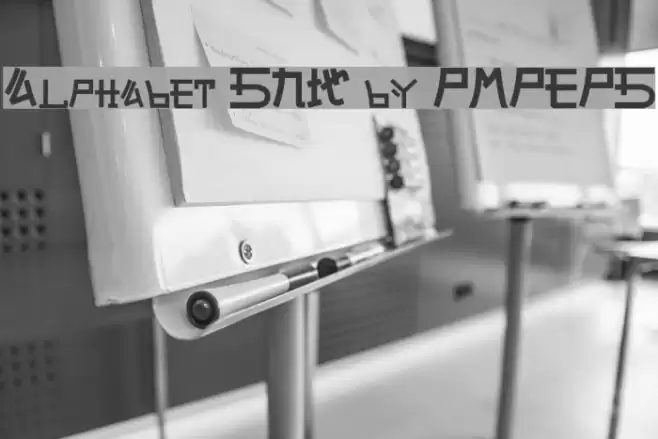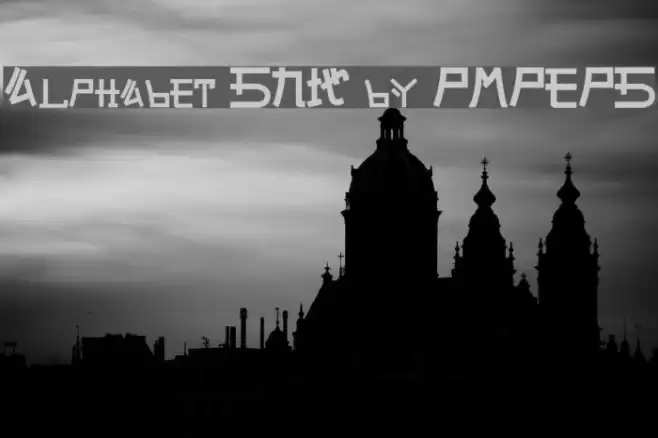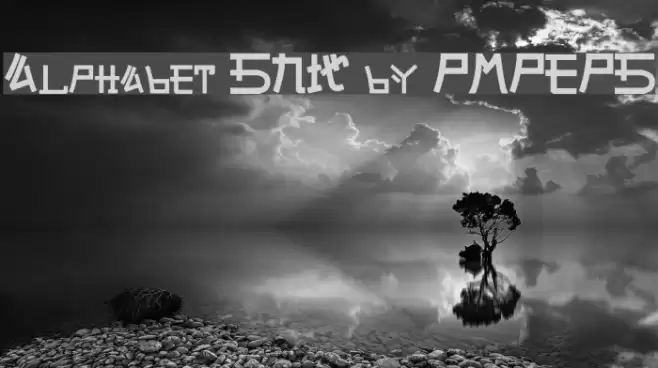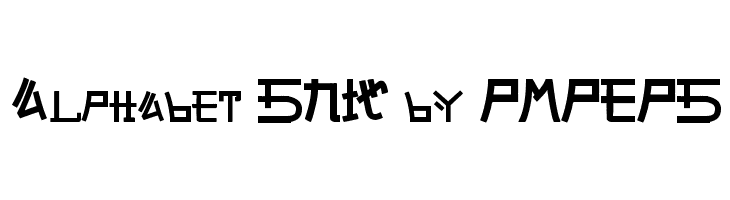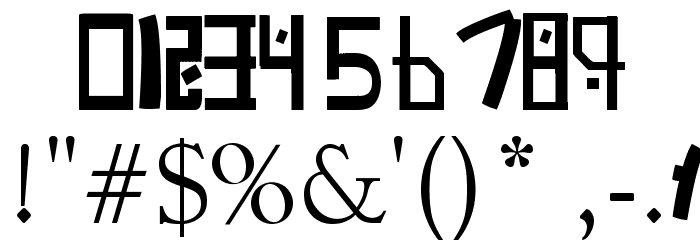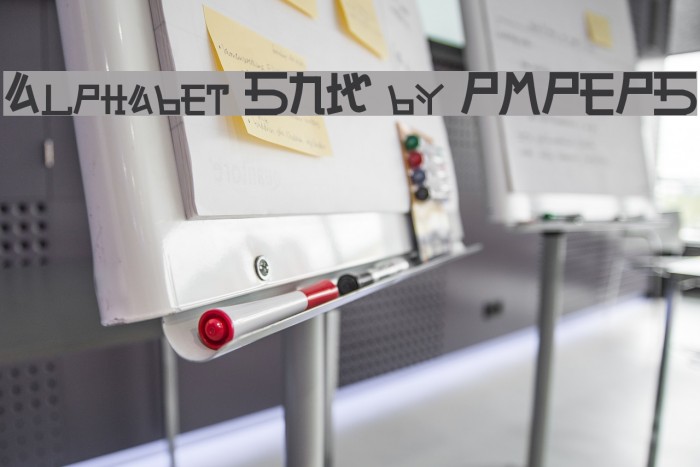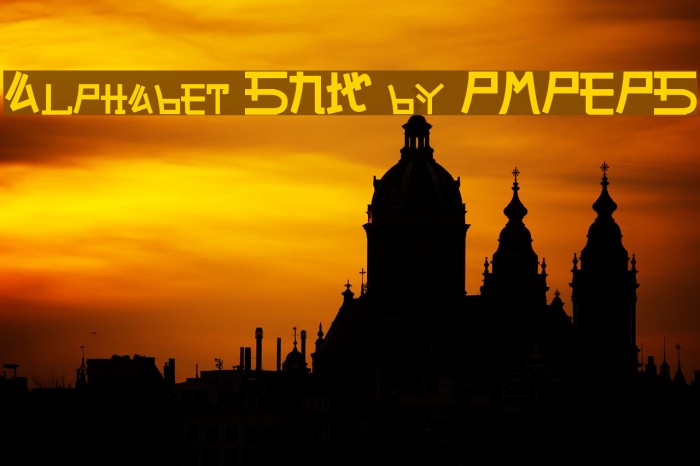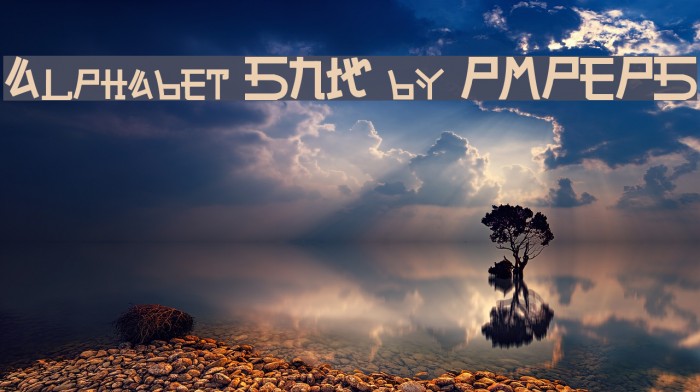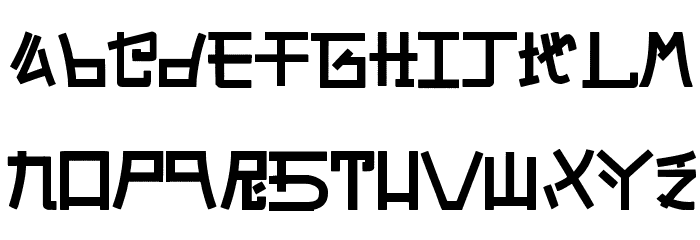
This font features a bold, geometric style with a unique, angular design. The characters are constructed with sharp edges and straight lines, giving them a futuristic and digital appearance. The uppercase letters are particularly striking, with some characters incorporating unexpected angles and cuts that add to the font's distinctiveness. The lowercase letters maintain the angular theme, though they are slightly more subdued in their design. Numbers and special characters follow the same stylistic cues, ensuring a cohesive look across all glyphs. The overall impression is one of modernity and innovation, making it suitable for projects that require a bold and unconventional aesthetic.
A bold, geometric font with angular, futuristic design elements from Uncategorized fonts.
- Proposed Projects: Ideal for tech-related branding, video game titles, sci-fi book covers, and digital media projects.